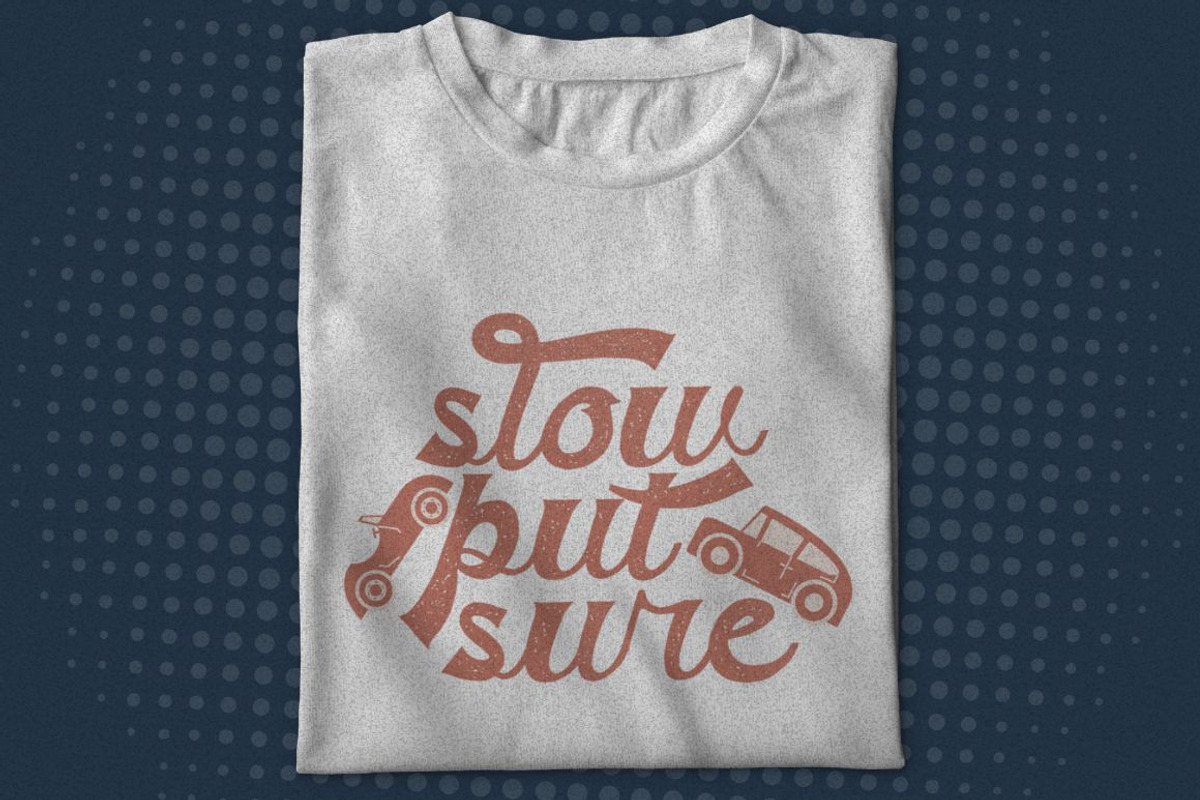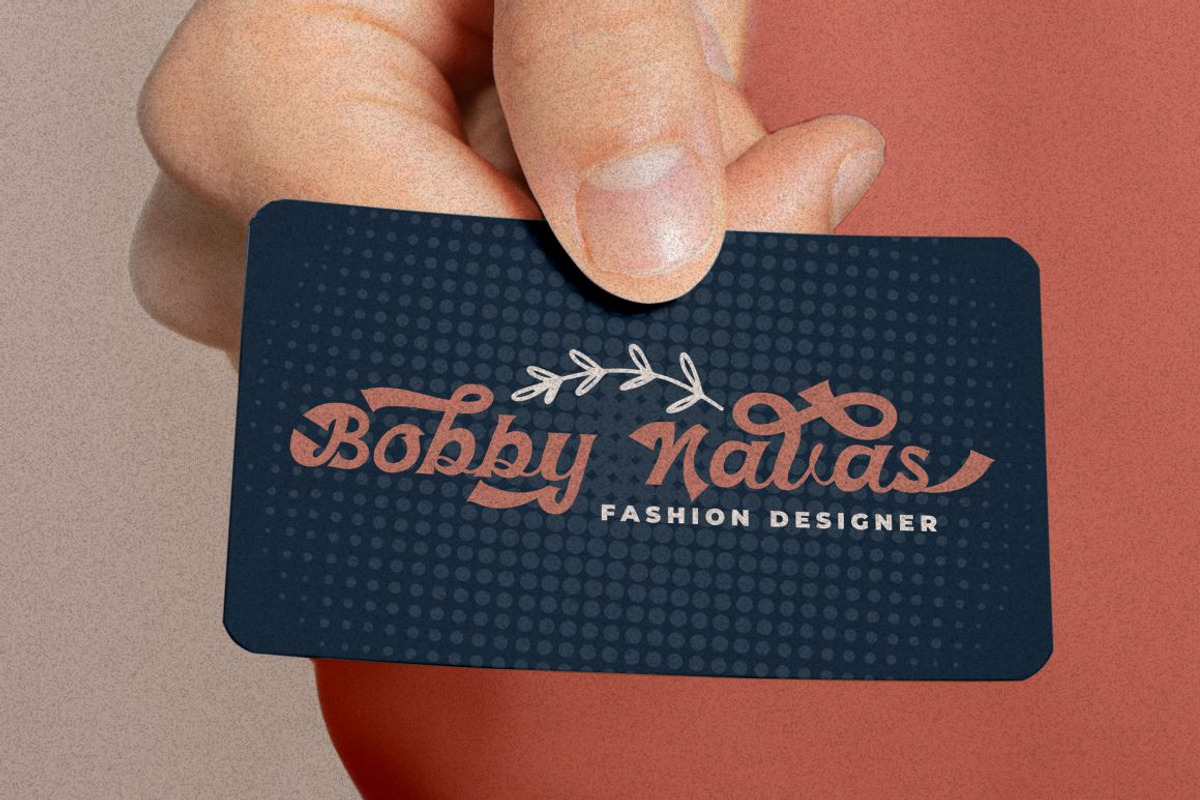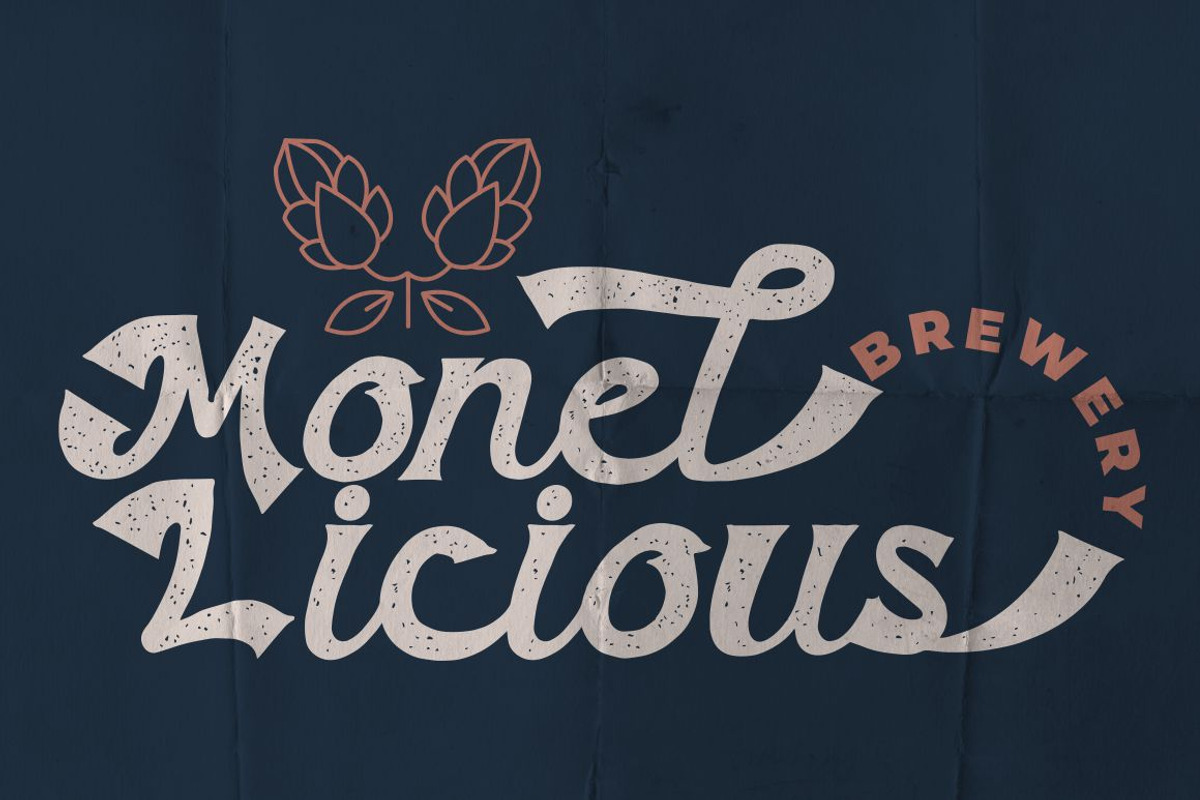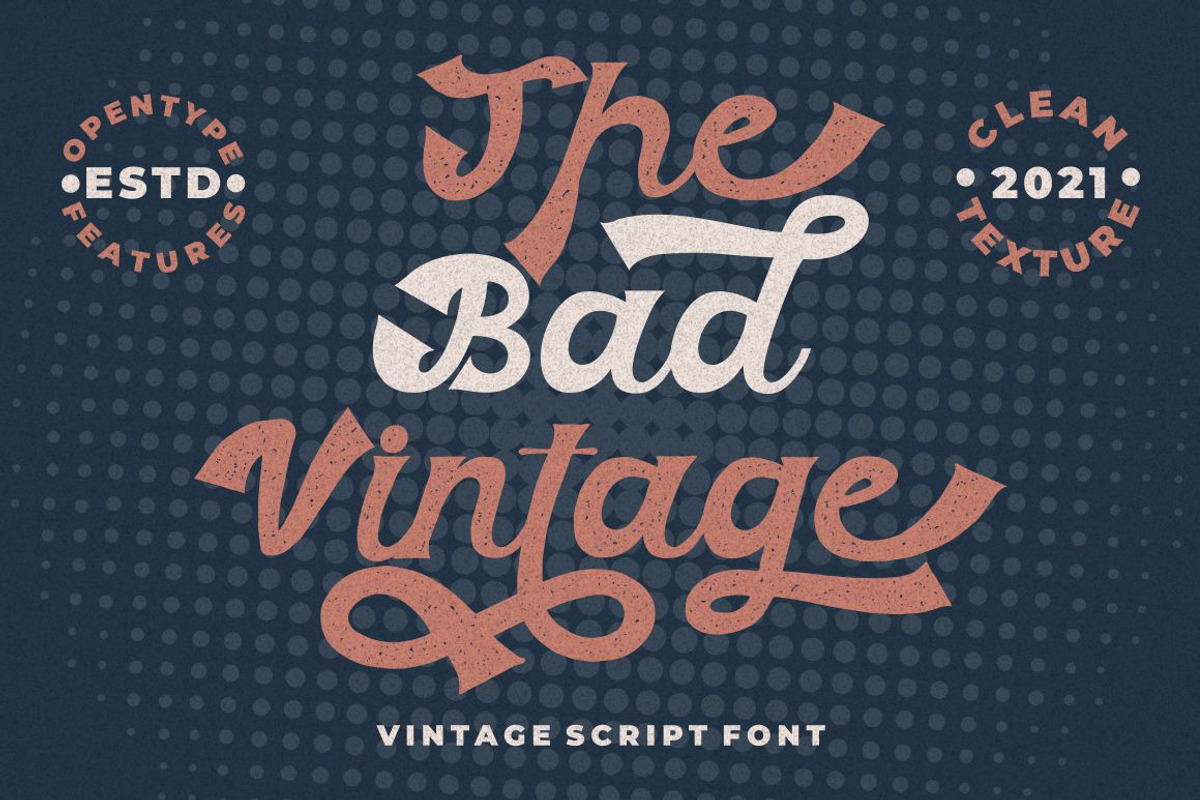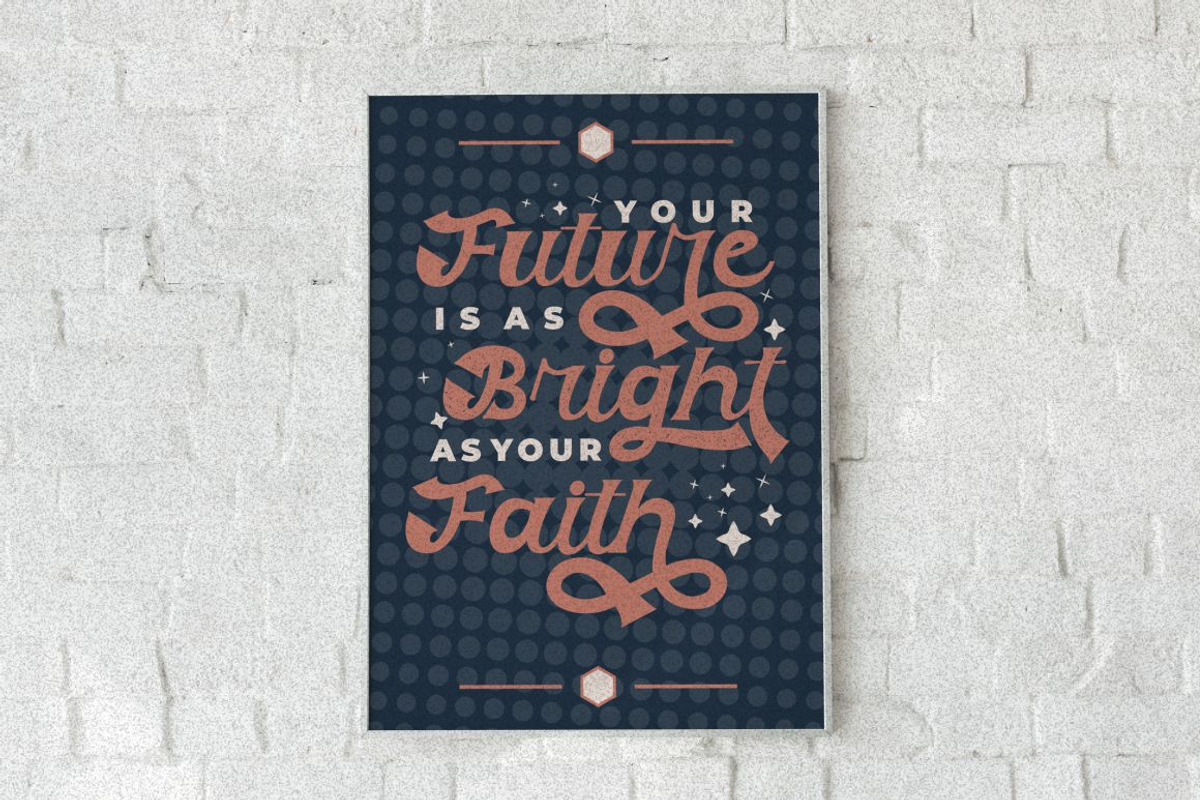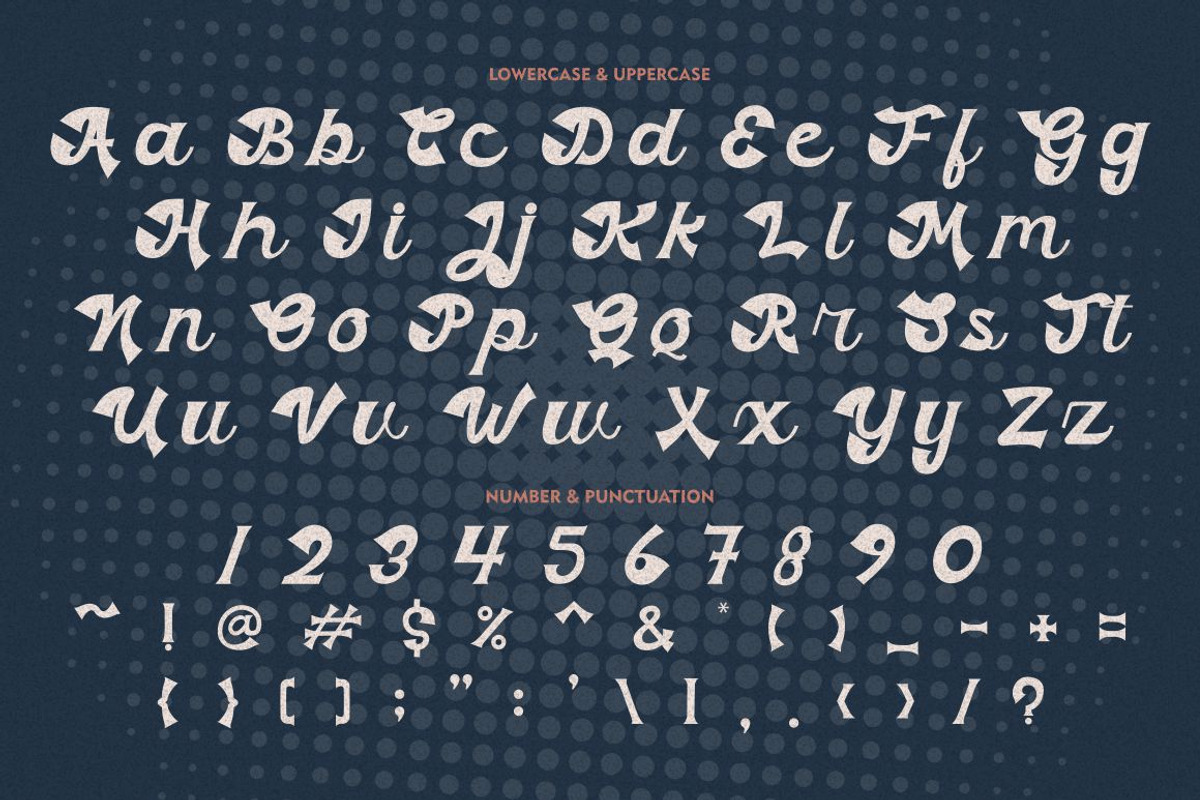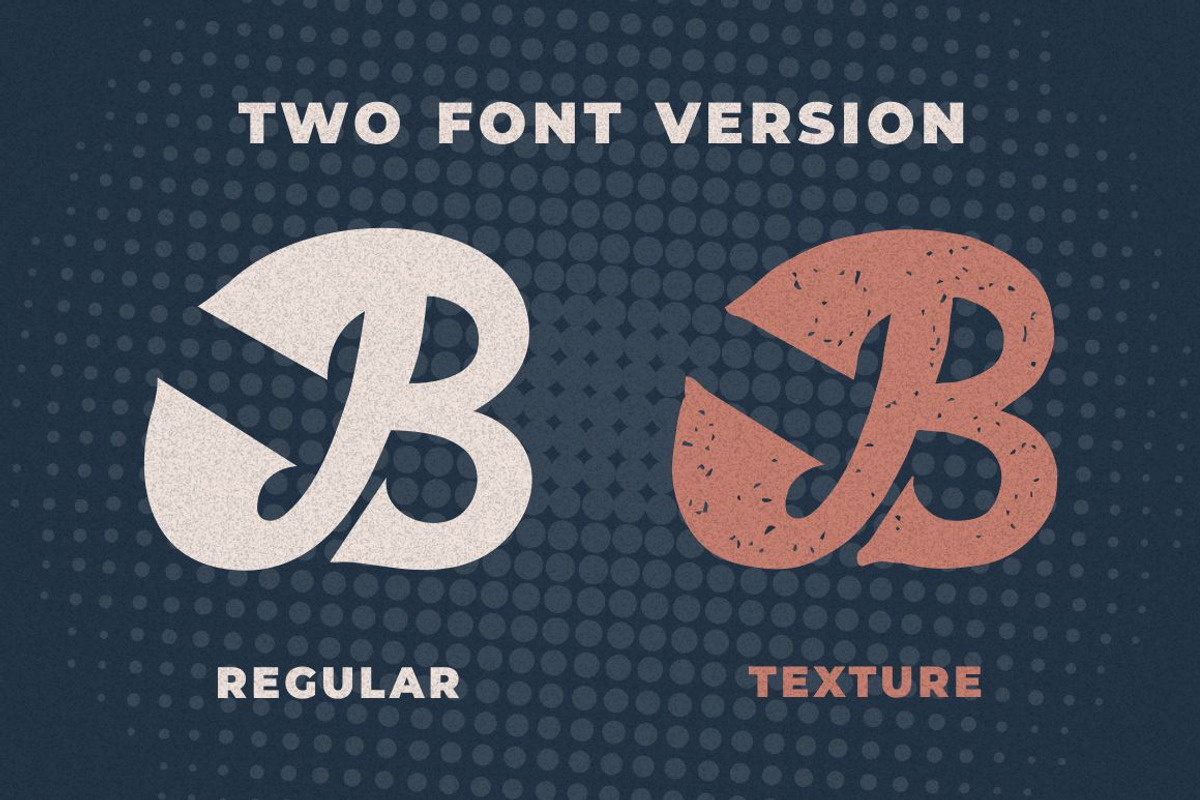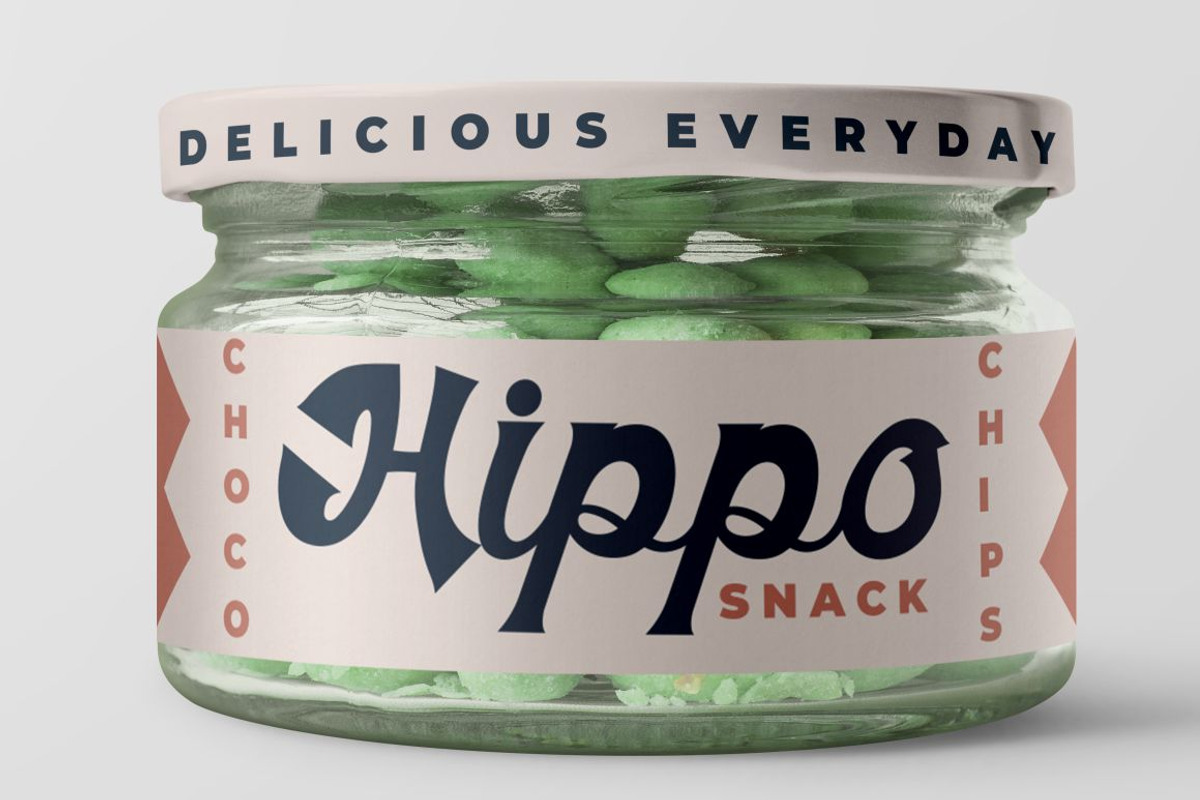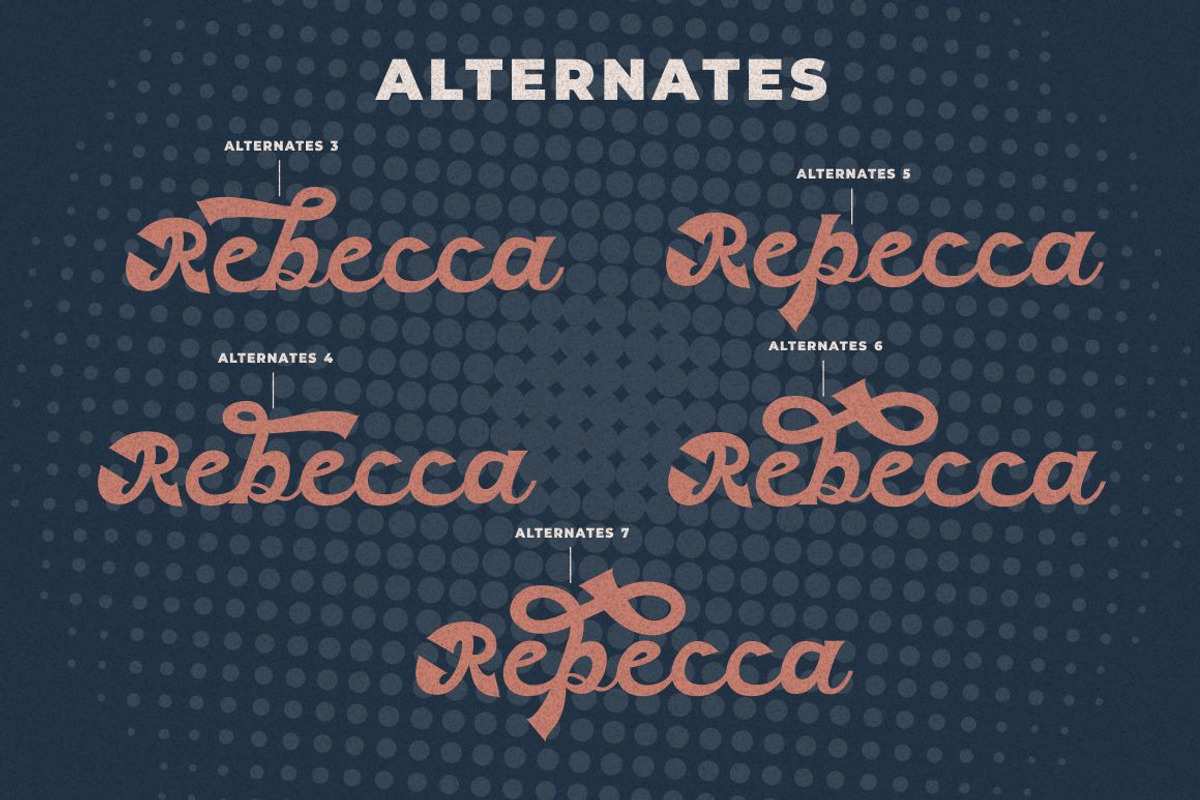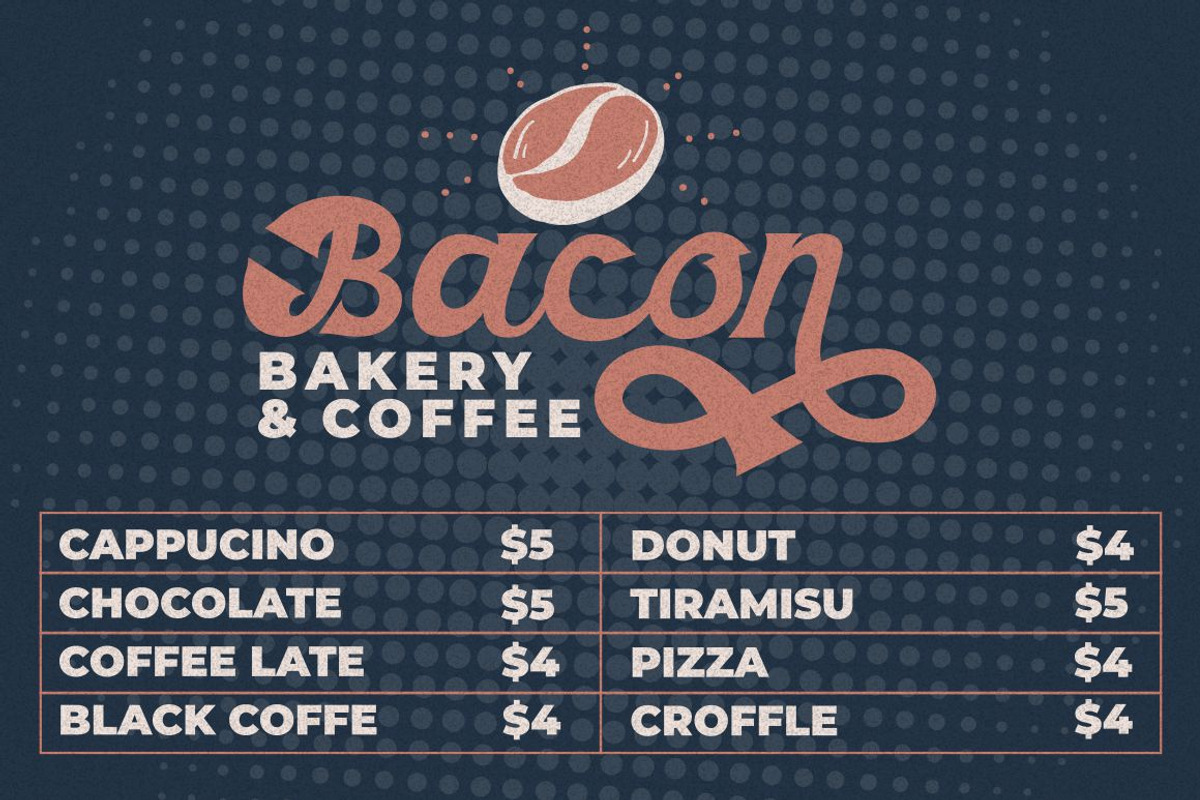
The Bad Vintage - Vintage Script
The Bad Vintage - Vintage Script Font
The Bad Vintage - Vintage Script Font. In this font I try to combine vintage with luxury/aesthetics. So that this font can be used in various projects with retro/vintage and luxury themes. Such as logos, branding, posters, packaging, book covers, clothes/apparel, quotes, titles and others. This font come with clean and rough font version.
Come with Opentype feature with a lot of alternates, its help you to make great lettering. This font is also support multi language.
Comes with feature :
- Opentype (Alternates And Ligatures)
- Number, Punctuation And Symbols
- Multilanguage Support.